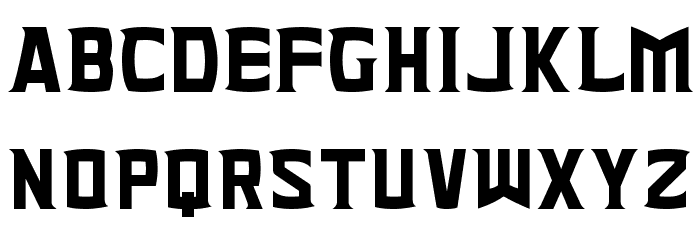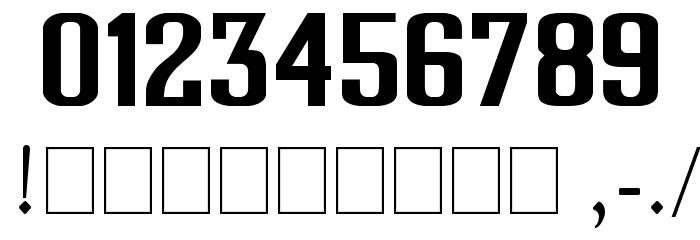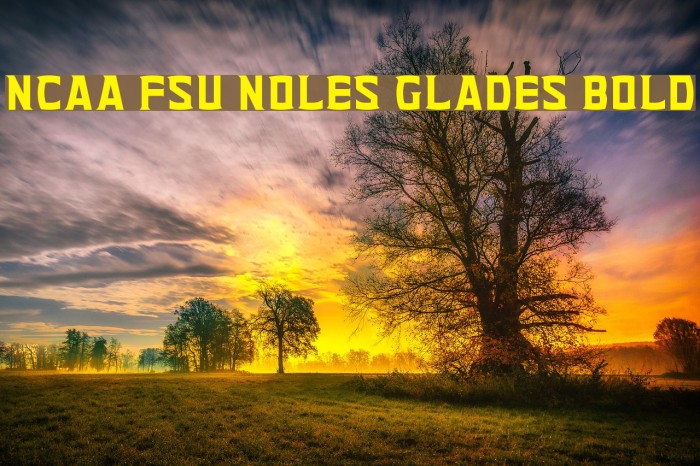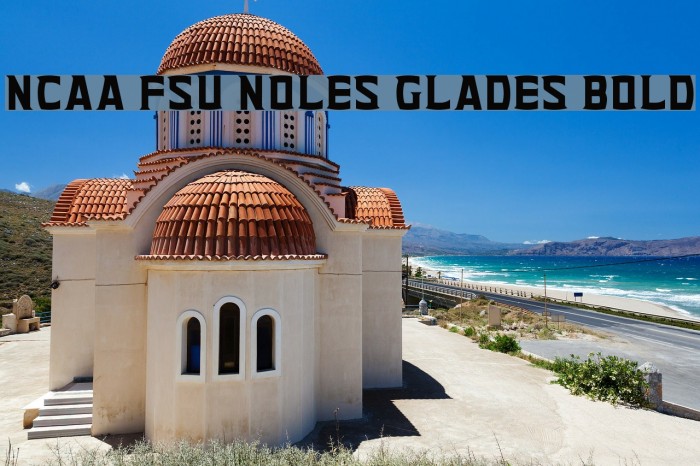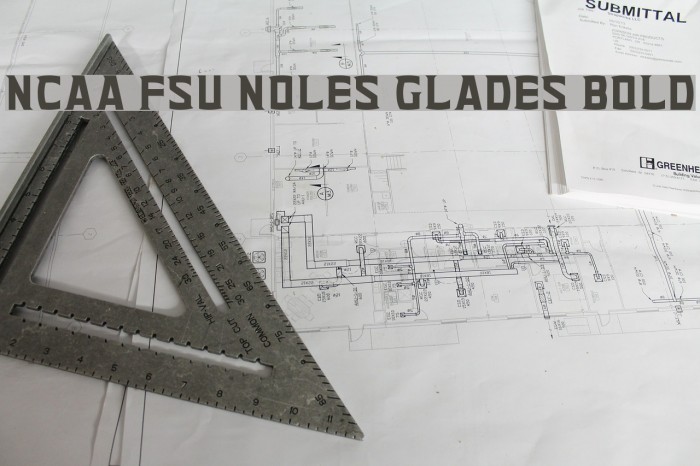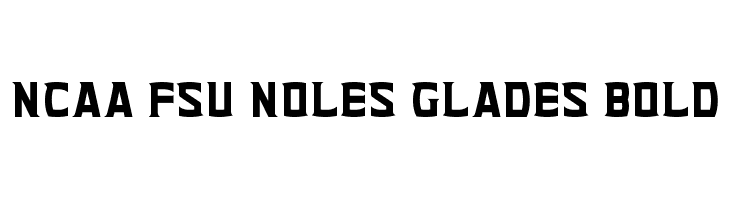
NCAA FSU Noles Glades Bold Font
This font features a bold and striking design, characterized by its sharp, angular edges and strong geometric shapes. The uppercase letters are particularly prominent, with a distinct presence that commands attention. The numbers and special characters maintain the same boldness, ensuring consistency across all characters. The font's style is reminiscent of athletic or collegiate themes, making it ideal for projects that require a sense of strength and determination. Its bold weight and high contrast in stroke thickness contribute to its impactful appearance, while the character spacing is relatively tight, enhancing its compact and powerful look.
A bold, angular font with a strong geometric design, ideal for athletic themes.
- Proposed Projects: Perfect for sports branding, team logos, event posters, and merchandise designs.
- Character Spacing: Tight